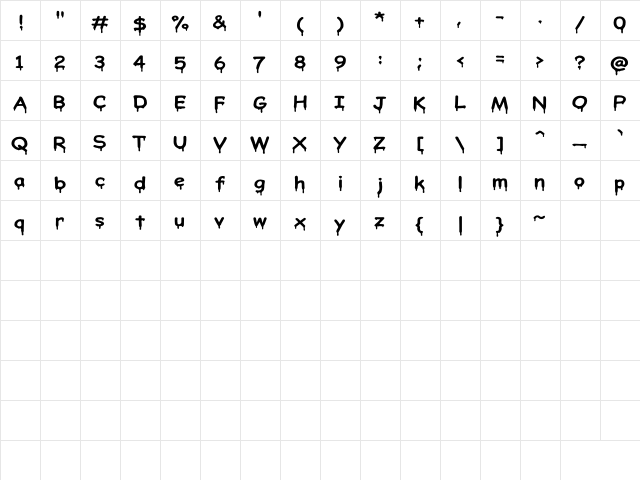
Honeydripper Regular
Design Context for Honeydripper Typeface
Honeydripper is a composed and adaptable typeface that performs quietly and consistently across a wide range of design contexts.